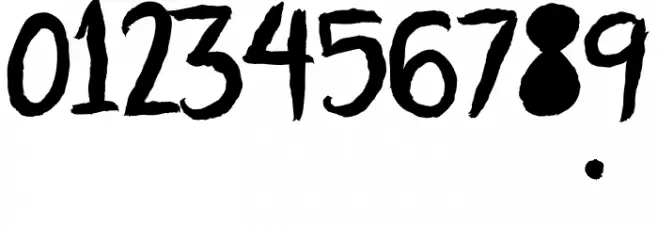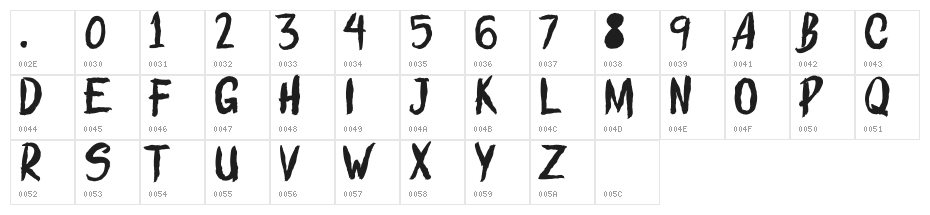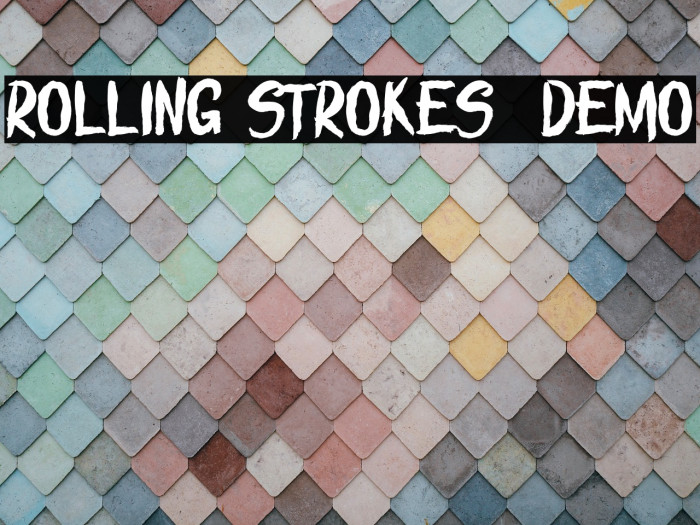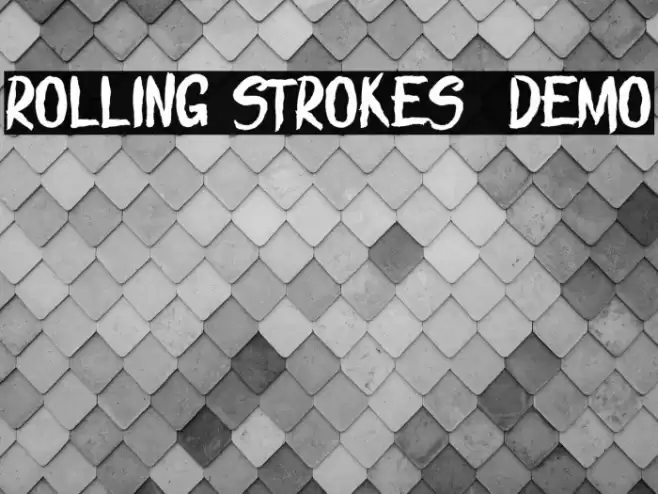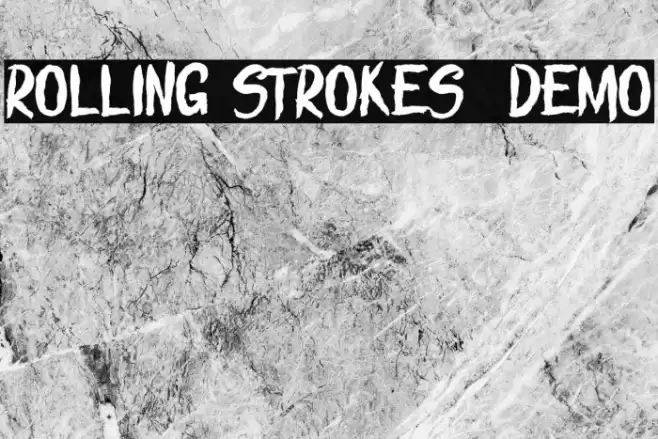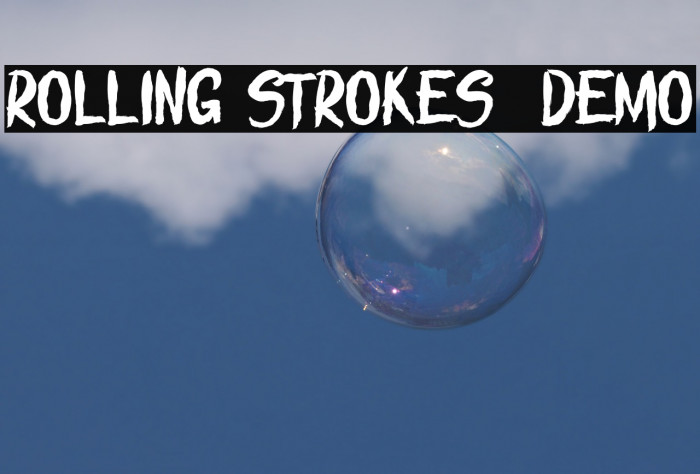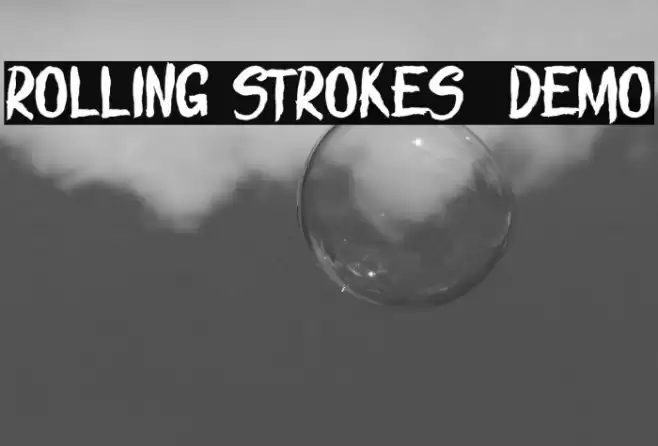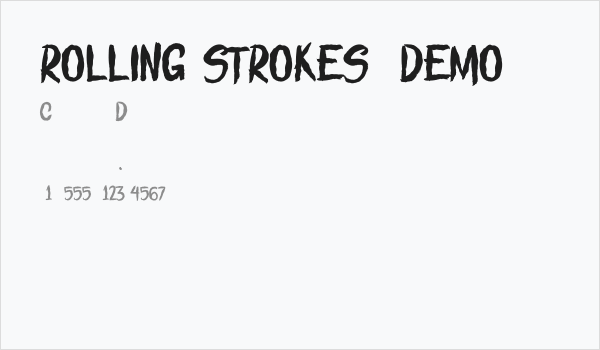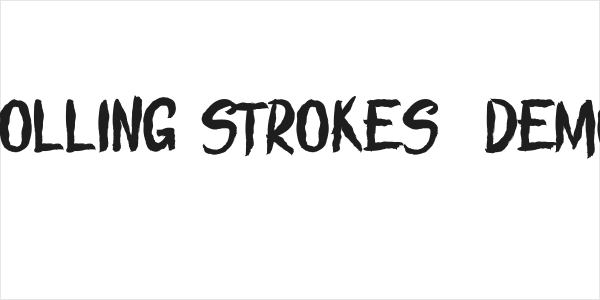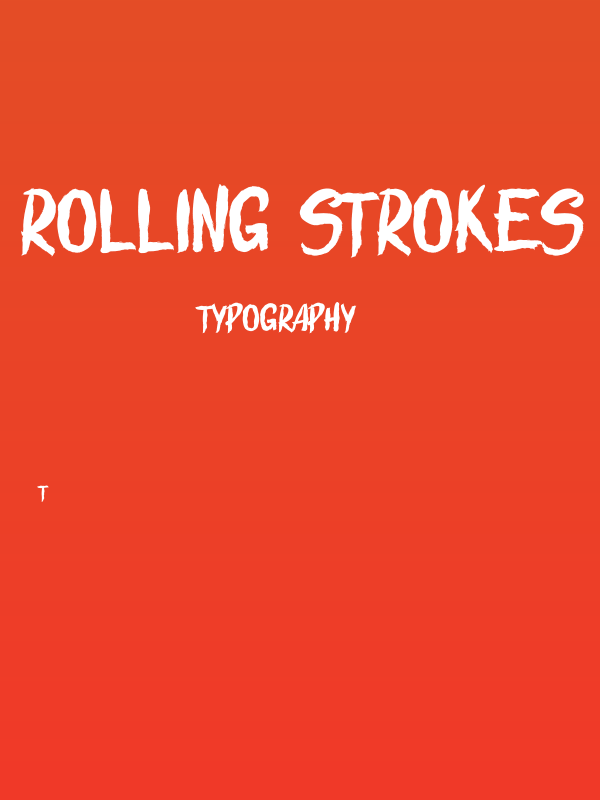
ROLLING STROKES DEMO Font
ROLLING STROKES DEMO Description
This font features a bold, expressive style with brush-like strokes that give it a dynamic and energetic appearance. The characters are crafted with irregular edges, mimicking the natural flow of hand-painted lettering. The uppercase letters are prominent and commanding, while the numerals maintain the same boldness, ensuring consistency throughout. This font's artistic flair makes it ideal for projects that require a touch of creativity and individuality. Its unique design is perfect for capturing attention and conveying a sense of movement and spontaneity.
| Use Case | Headlines, Logos, Artistic projects |
| Proposed Projects | Ideal for posters, branding, artistic projects, and any design that requires a bold, creative touch. |